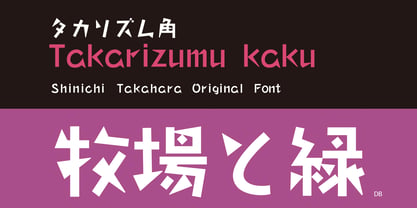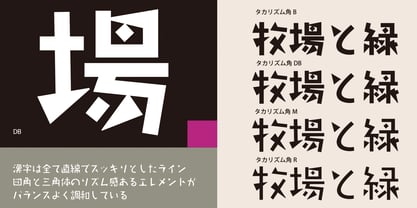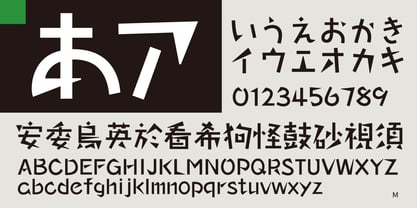
Takarizumu-kaku
It has a solid framework and the kanji characters are all composed of straight lines. The typeface has a moderate harmony of clean lines and squares, as well as the rhythmic elements of the triangular typeface.